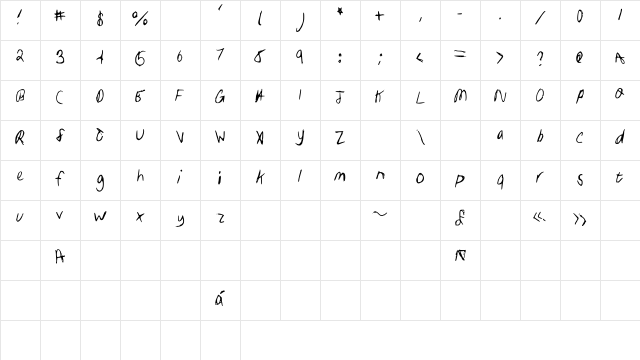
SamHandwriting Medium Free Font
SamHandwriting Medium
Complete SamHandwriting Medium glyph index. Displaying only characters natively supported by SamHandwriting Medium font.
Design Context for SamHandwriting
SamHandwriting flows with the natural rhythm of handwritten lettering, making it ideal for designs that call for warmth and personal expression.
Font Pairing: Combine SamHandwriting with a simple geometric sans for maximum contrast - the tension between flowing curves and clean structure is a classic typographic pairing.
Pro Tip: Use SamHandwriting for short runs of text - names, titles, or taglines. Extended body copy in script faces tires the eye quickly.